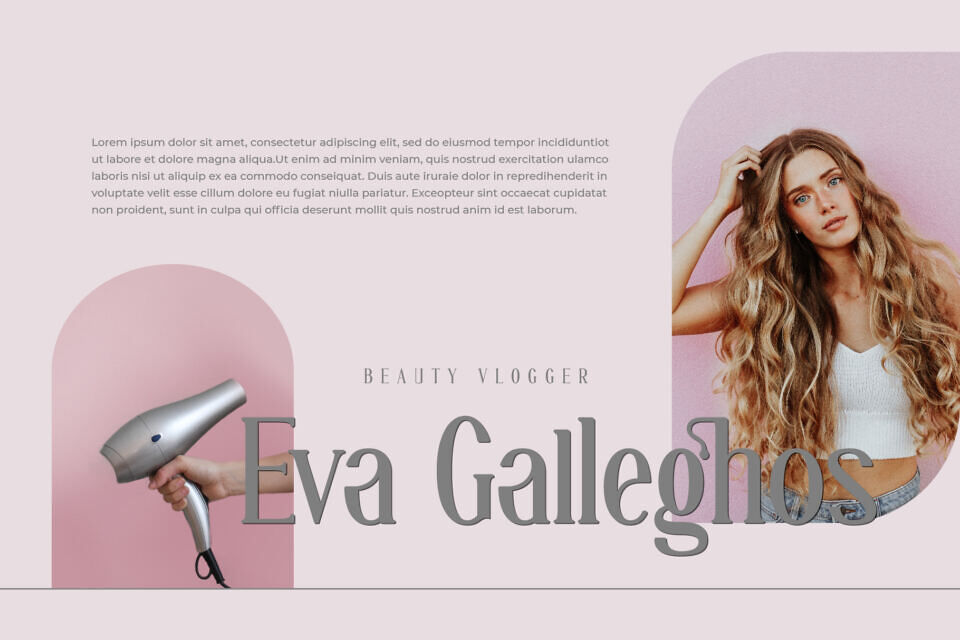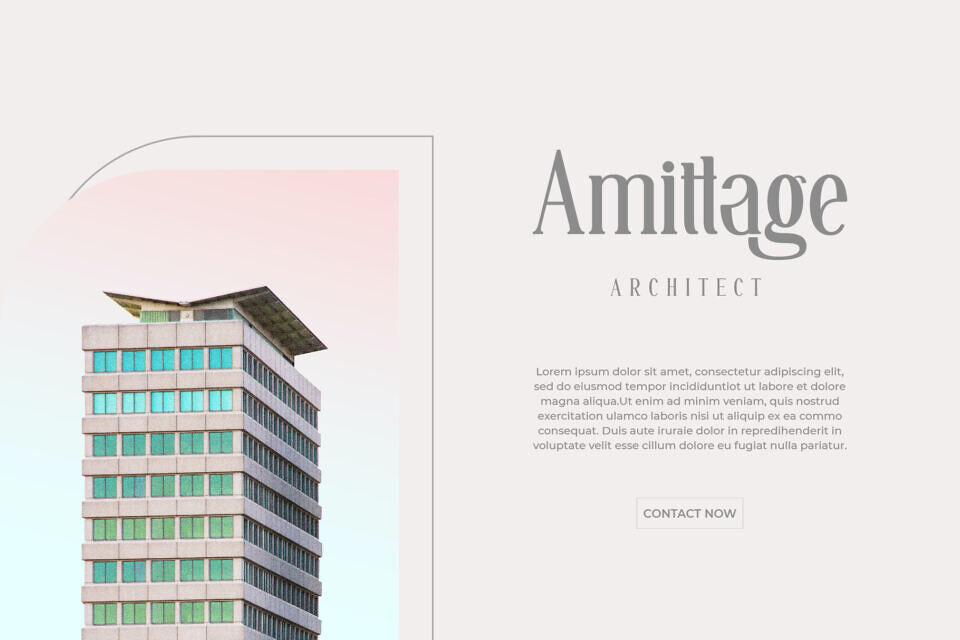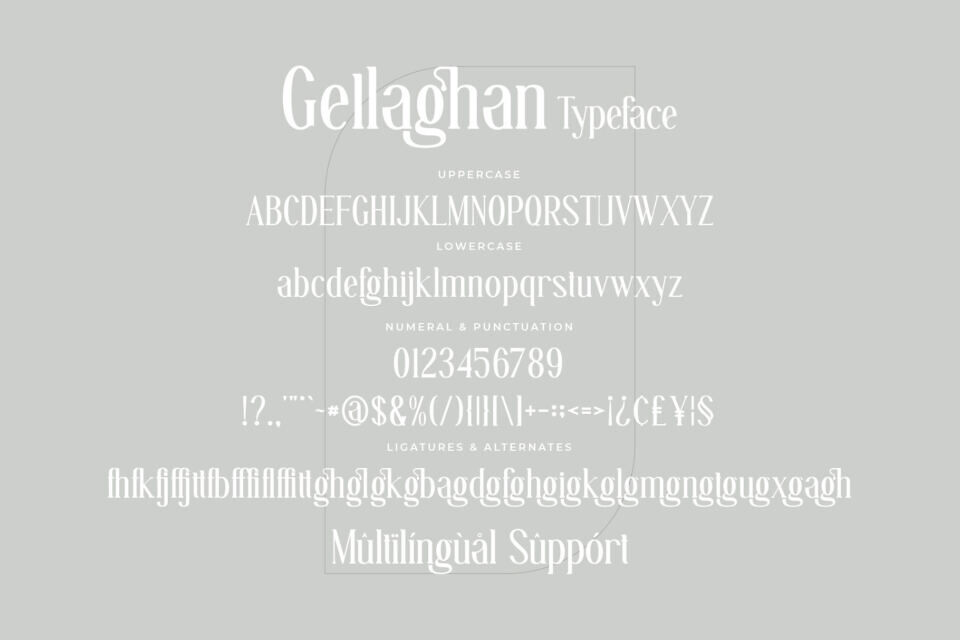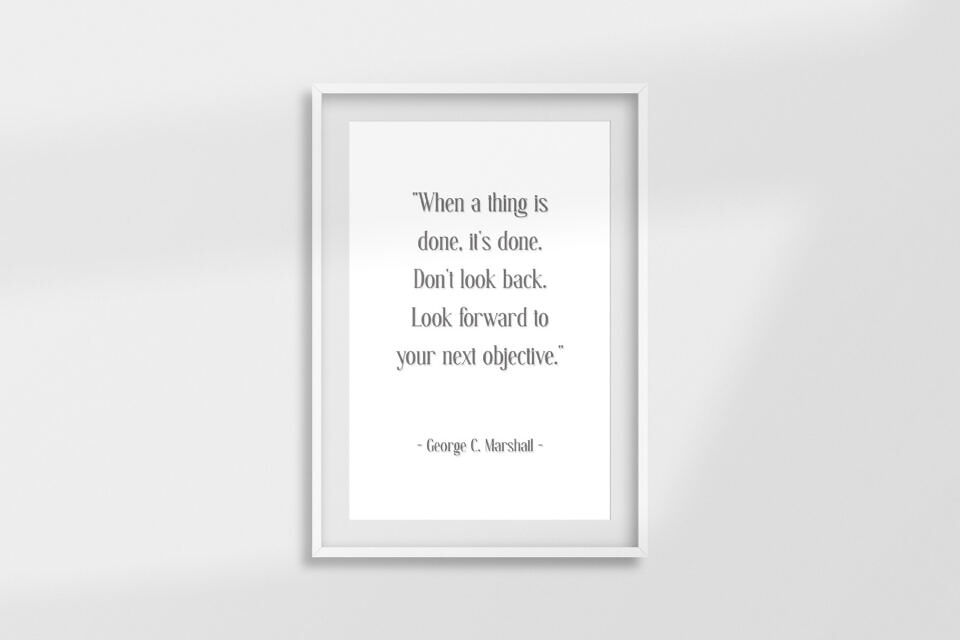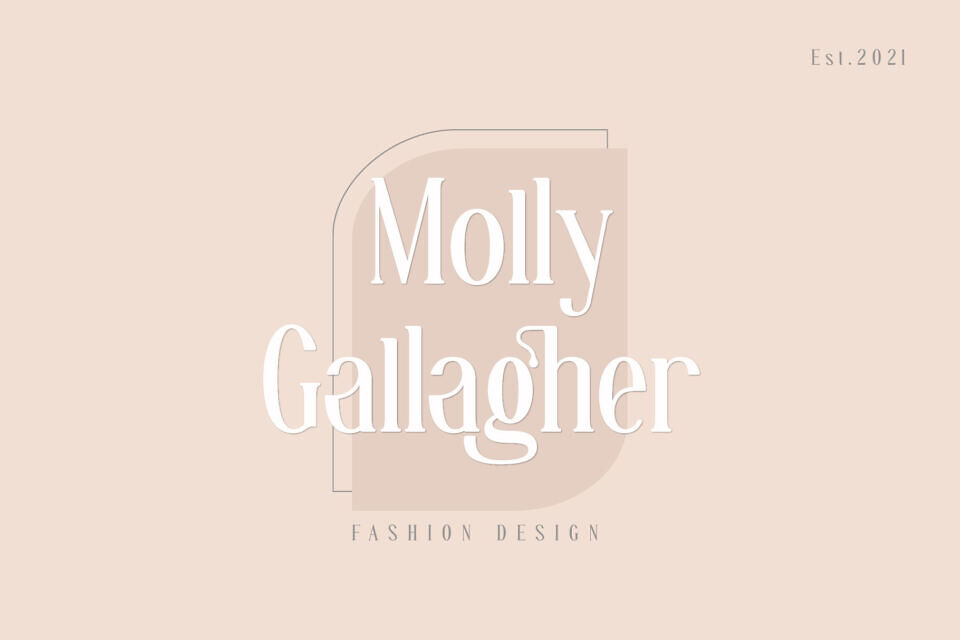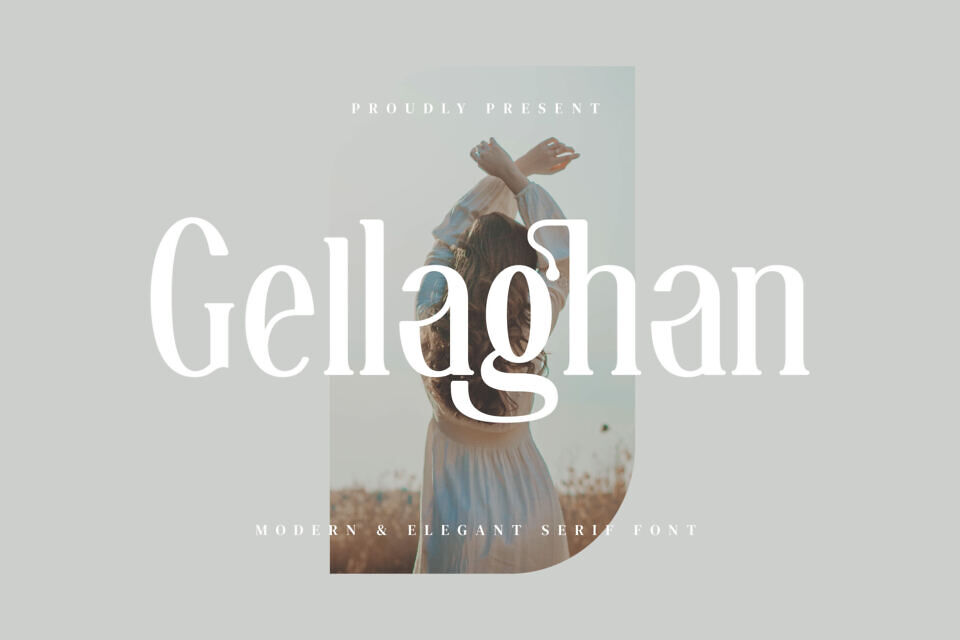
Gellaghan Font
The Gellaghan typeface is a modern, elegant serif font inspired by minimalist design. Perfect for various creative projects, it’s ideal for templates, brochures, videos, and branding. With PUA encoding, accessing its glyphs and swashes is easy. Its versatile style makes it perfect for creating eye-catching designs, from logos to advertisements, and more.